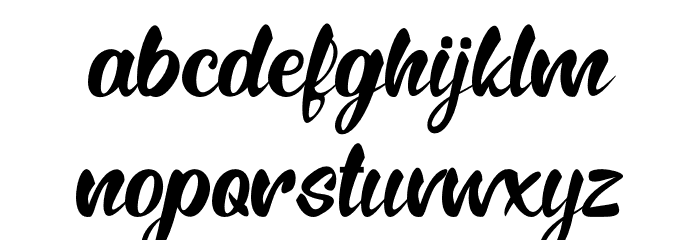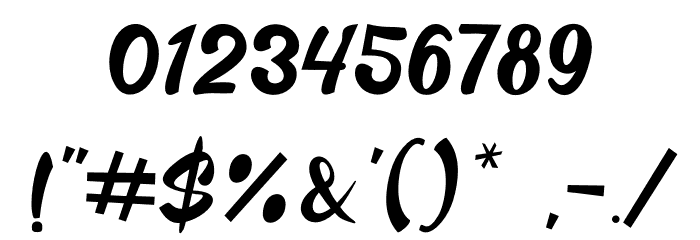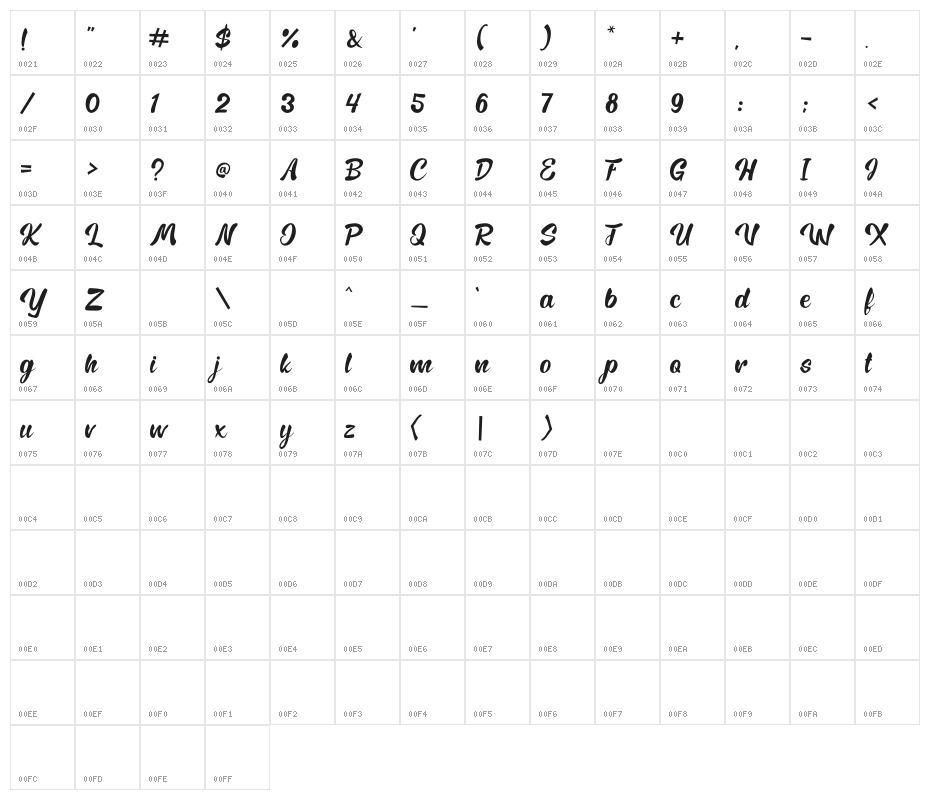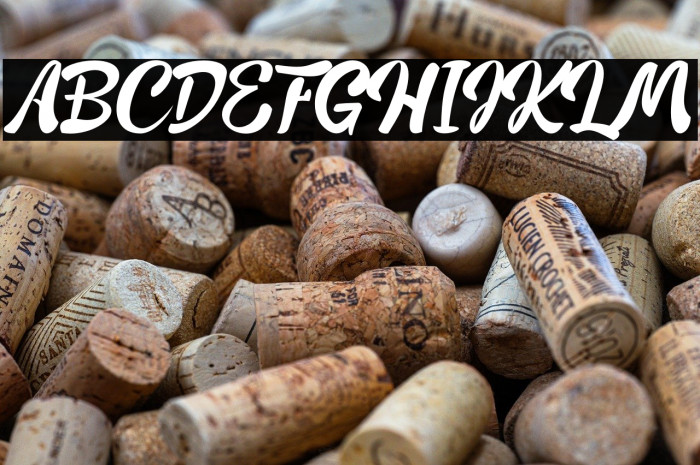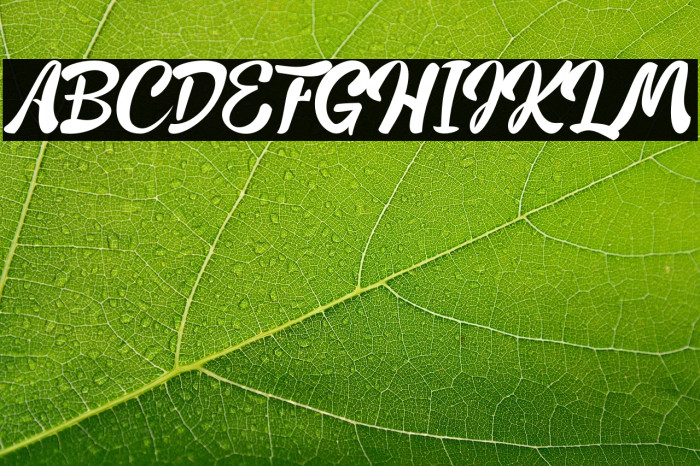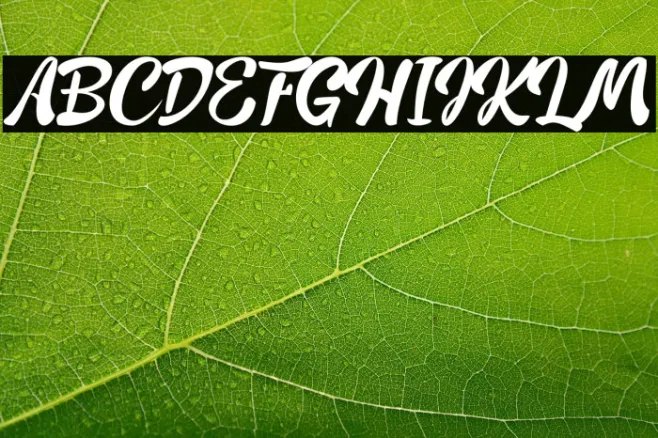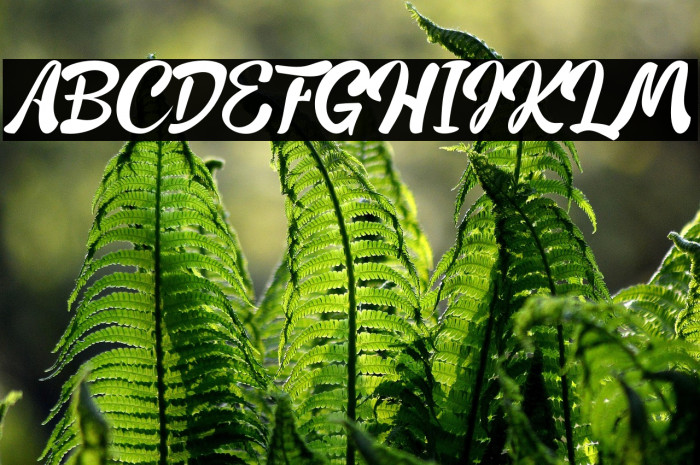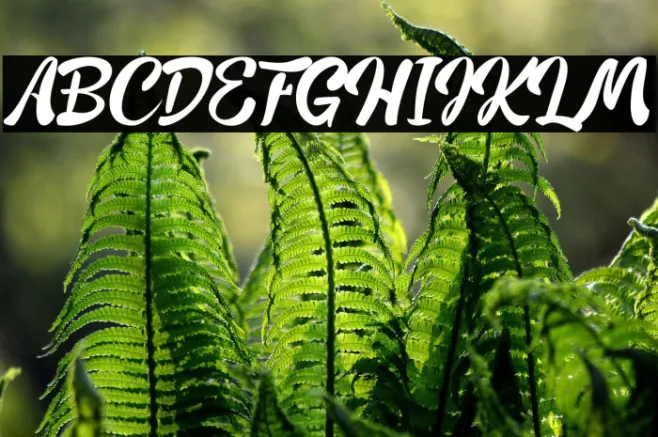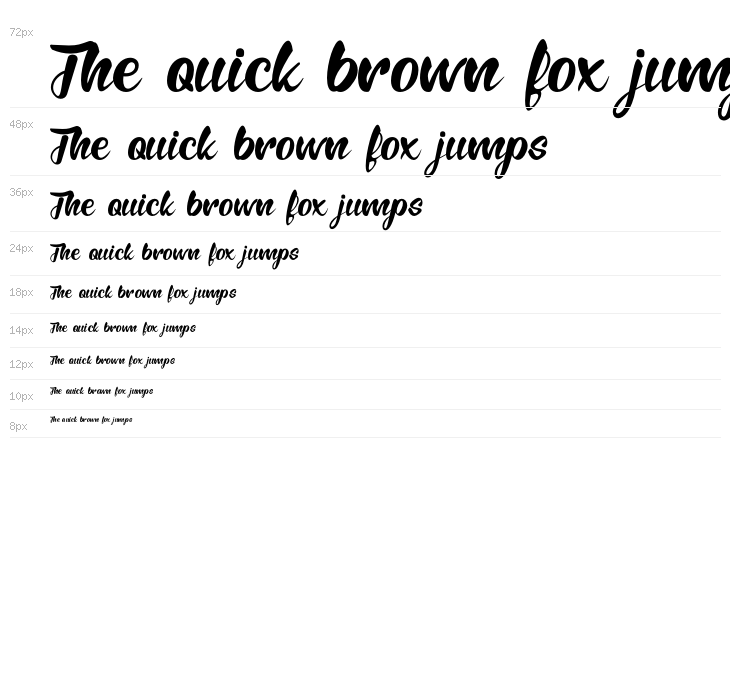
Rembow Font
This font features a bold, cursive style with a strong presence. The uppercase letters are elegantly slanted, giving a sense of motion and fluidity. The lowercase letters maintain a consistent flow, enhancing readability while preserving the artistic flair. Numbers are bold and clear, matching the overall style of the alphabet. Special characters are designed to complement the letters, maintaining the same bold and cursive characteristics. The font's dynamic and expressive nature makes it suitable for creative and impactful designs.
A bold, cursive font with a dynamic and expressive style.
- Font: Rembow
- Proposed Projects: Ideal for branding, posters, invitations, and any project requiring a bold, artistic touch.